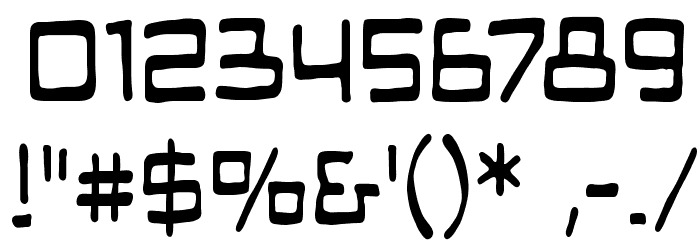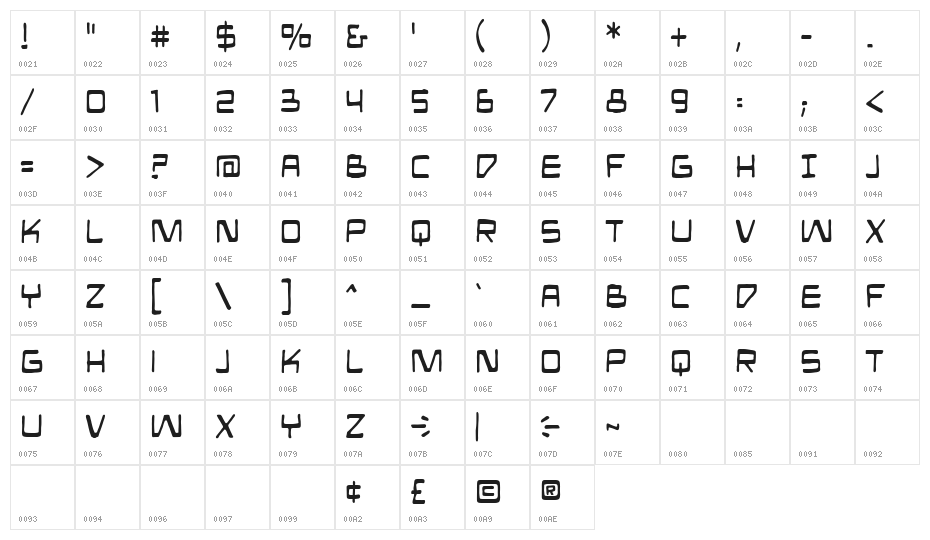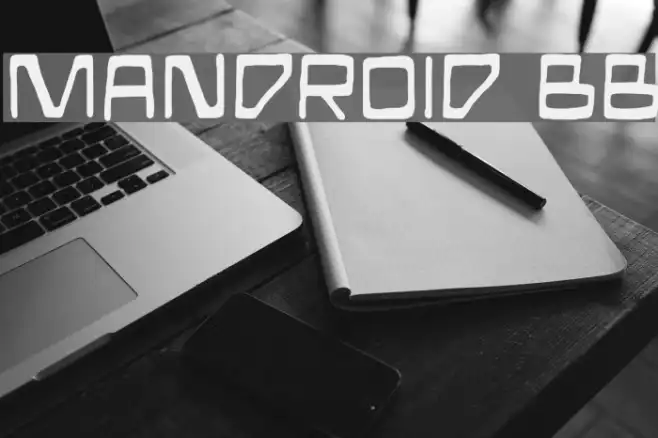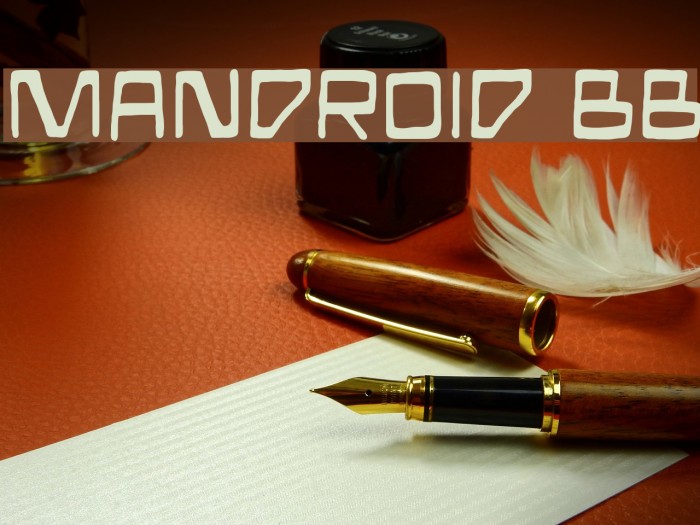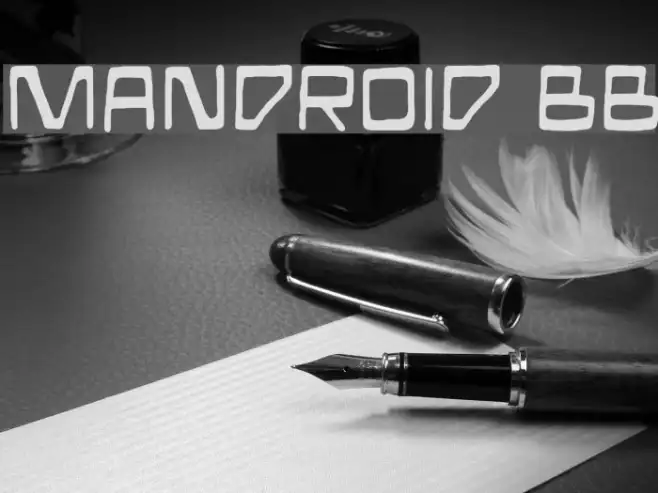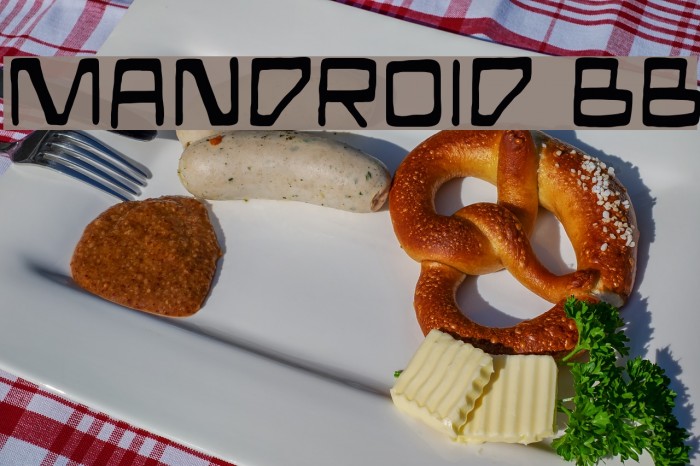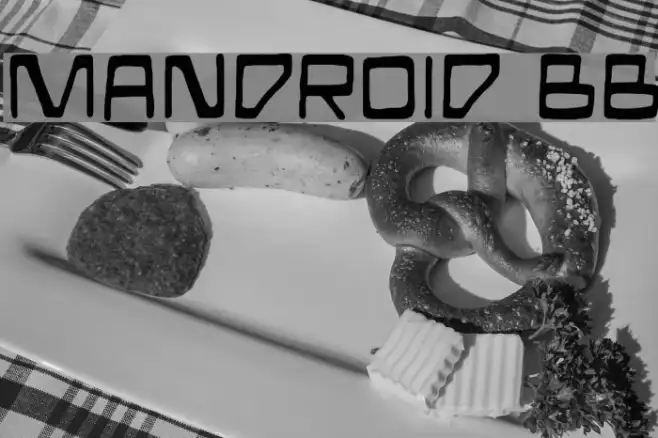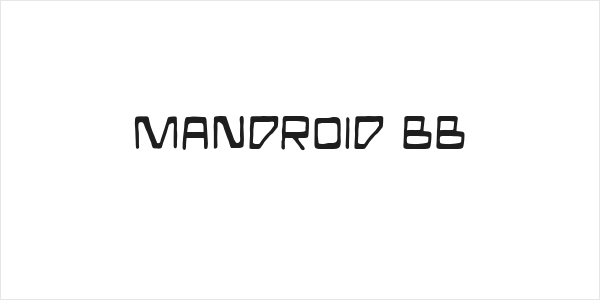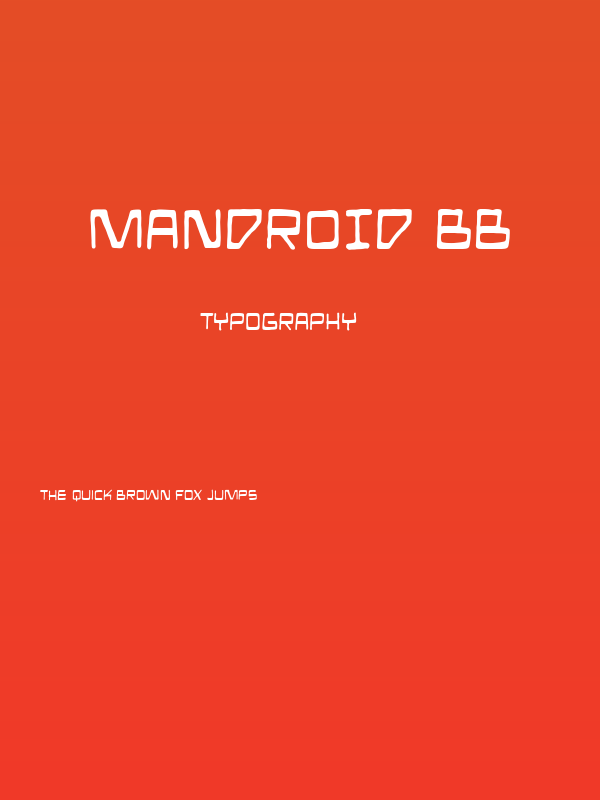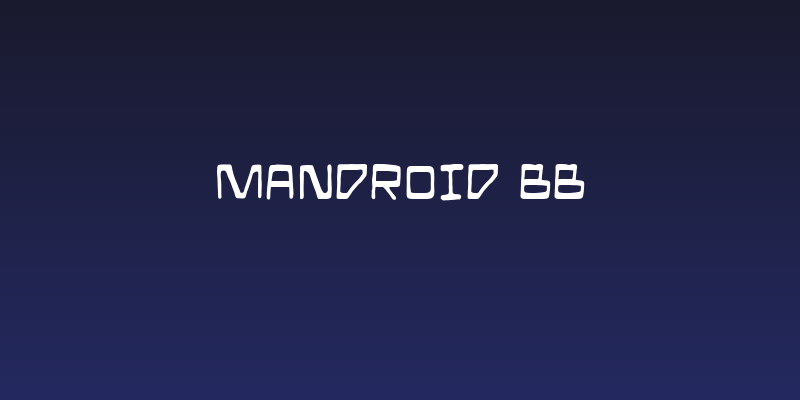
Mandroid BB Font
Mandroid BB Description
This font features a bold, futuristic design with a distinct, robotic aesthetic. The characters are slightly rounded with a uniform thickness, giving them a mechanical yet approachable feel. The uppercase and lowercase letters maintain a consistent style, with the uppercase being slightly more angular. The numbers are clear and easy to read, matching the overall theme of the font. Special characters are included, maintaining the same bold and structured appearance. This font is ideal for projects that require a modern, tech-inspired look.
| Proposed Projects | Ideal for tech branding, sci-fi posters, video game titles, and futuristic-themed designs. |